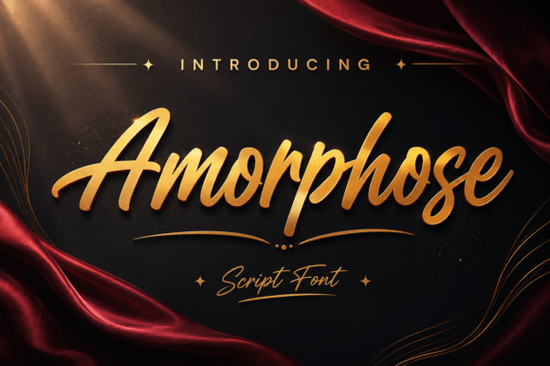
Design projects often stall because finding the right typography takes too long. You need something that balances readability with personality, and Amorphose Font provides exactly that mix. It is a custom-crafted manuscript script designed to blend modern elegance with raw vibrancy. Whether you are creating high-end wedding invitations, upscale branding, or trendy social media visuals, this typeface brings a sophisticated yet warm allure to your work. By offering exquisite curves and broadened stencils, it bridges the gap between artistic creativity and understated grace.
Is This Typeface Suitable for Commercial Work?
Many creators hesitate to choose script fonts for business projects because they worry about legibility or looking too casual. With Amorphose Font, you can confidently approach clients who want premium packaging or classy cosmetic tags. The seamless blend of fluid motion and pristine readability ensures your message remains clear even when styled artistically. It personifies timeless visual attraction, making it an exemplary option for initiatives aiming to radiate charm, fervor, and a touch of modern sophistication.
If you are preparing lavish materials, this tool transforms typographic decisions into an artful journey. Instead of forcing designs to look artificial, this script allows the content to breathe. From gripping social media visuals to premium packaging, the wide variety of stylish alphabet symbols characterizes the entire set, giving you flexibility without sacrificing cohesion.
How Does It Compare to Other Popular Options?
A Final Note on Design Choices
Typography impacts how your audience feels about a brand or event. Choosing Amorphose Font signals attention to detail and a desire for quality without being overly ostentatious. It creates a bridge between the artistic creativity and understated grace that many brands struggle to articulate through marketing copy alone. Take your time selecting the right tool for your next initiative.